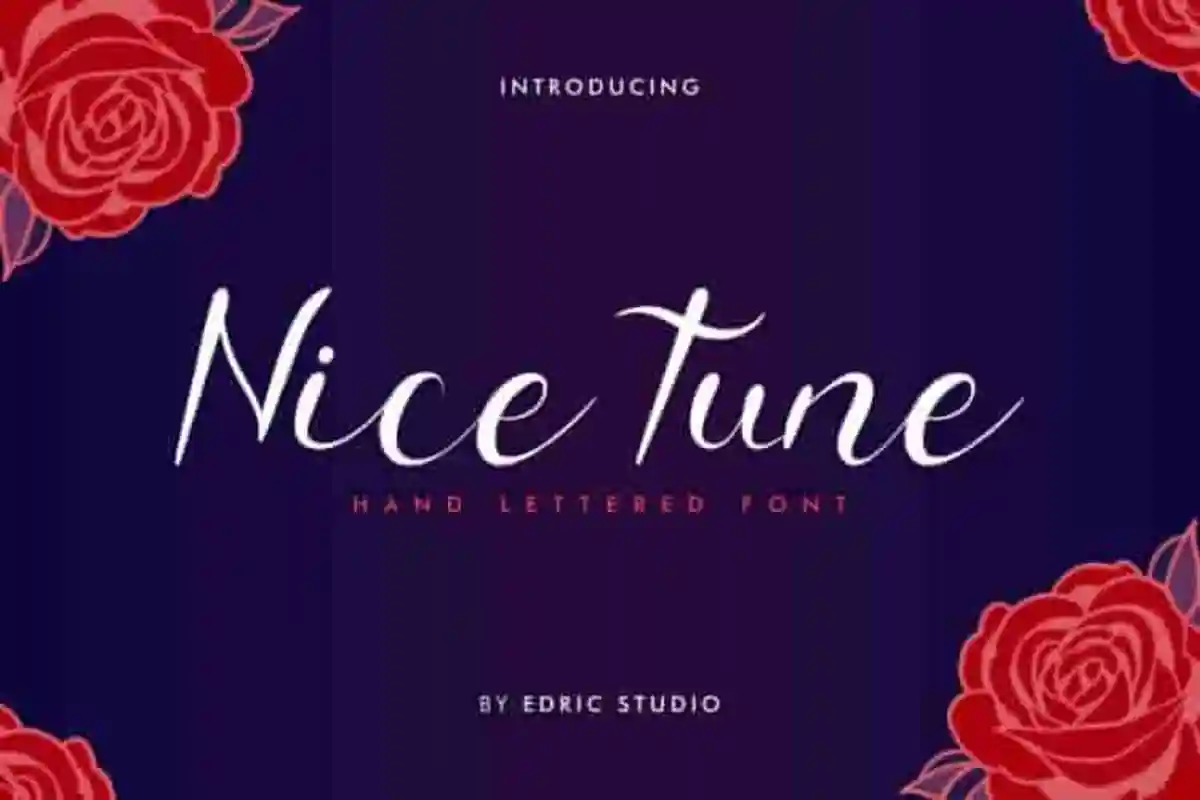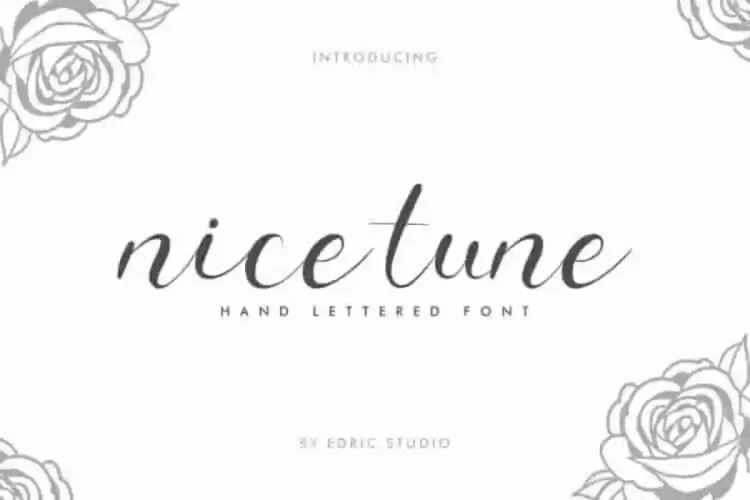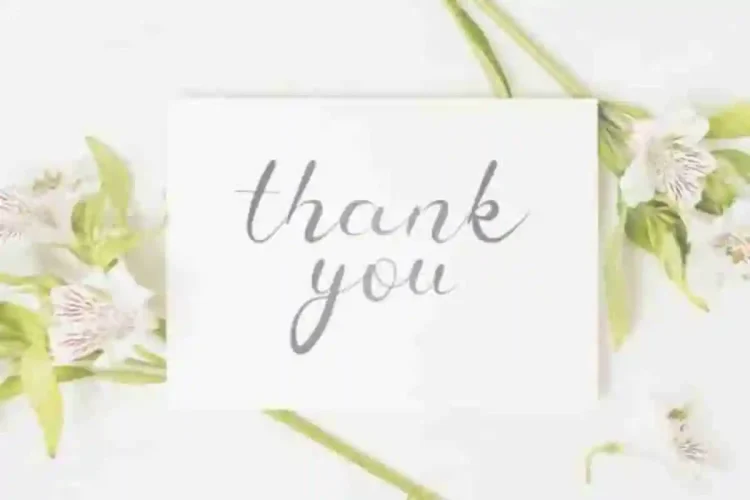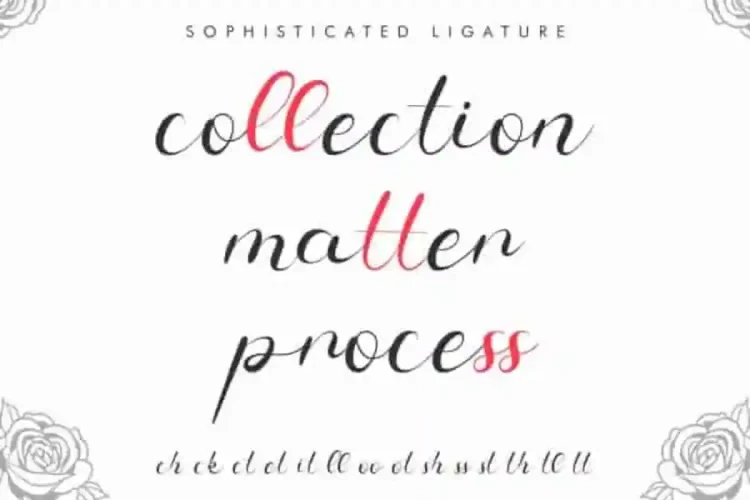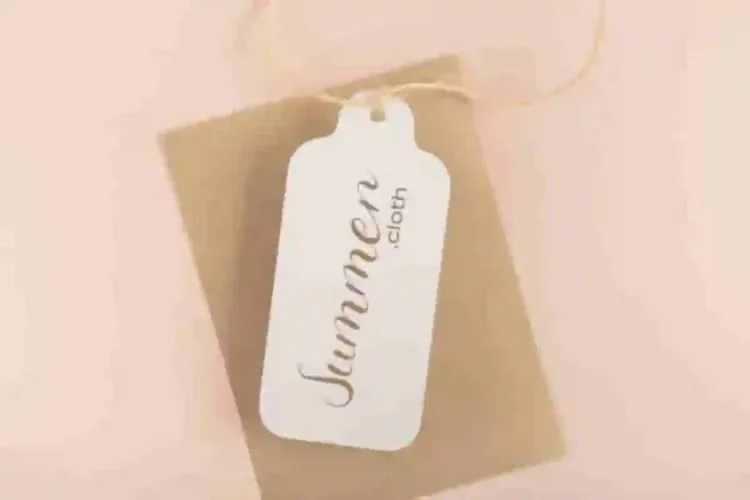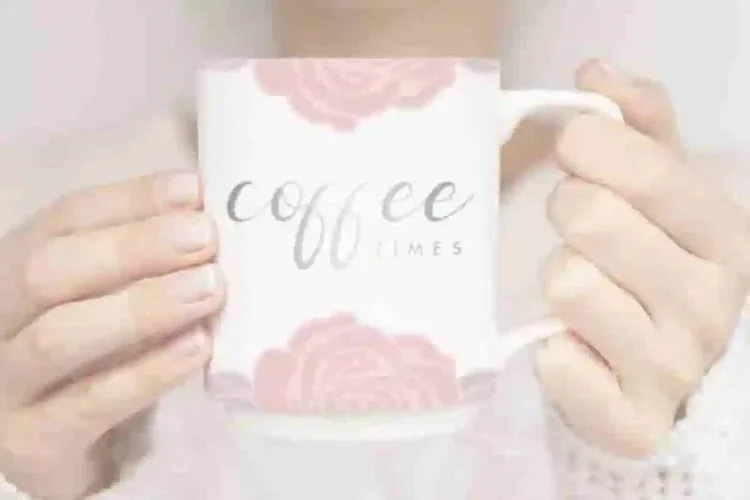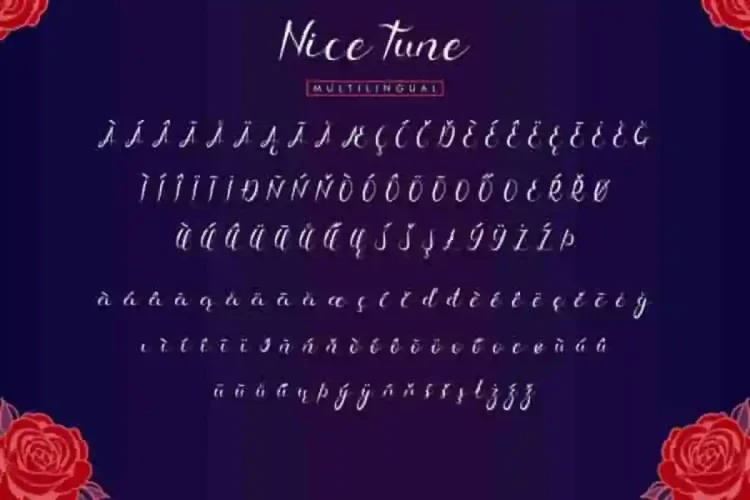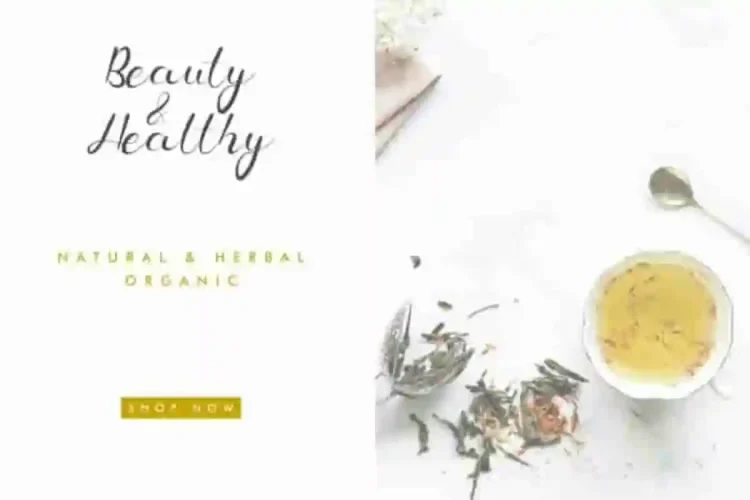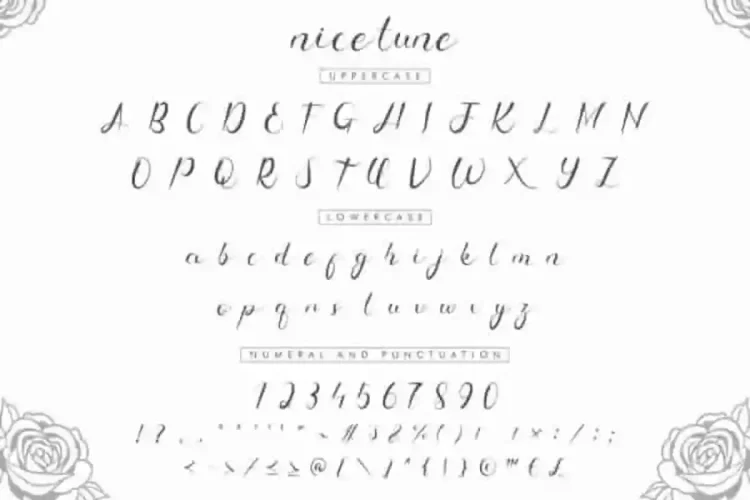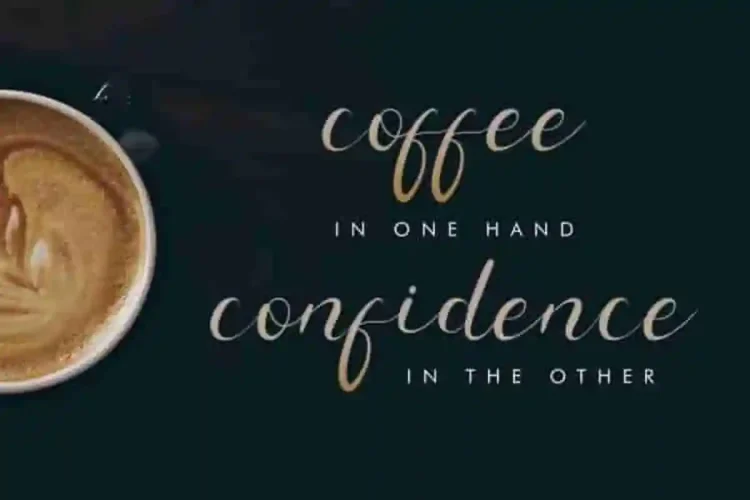
Nice Tune Calligraphy Script Font
Nice Tune Calligraphy Script Font!
This is a Calligraphy script font, handcrafted from our Studio here in, Indonesia. The artists/designers of this beautiful tyeface is Yasri and Sarah Suci.
Nice Tune Calligraphy Script Font Font is an exclusive display handwritting typeface with manual hand pen style. This font has a stunning characters set, perfectly managed with well spaced and kerning.
Nice Tune Calligraphy Script Font Font will be great for any projects including : branding, logo, stationery, business card, signage, flyer, brochure etc. Almost all industries will be match for this typeface: wedding, events, real estate, architect, law firm, florist, gardening, makeup artist, travel, hotel, musician etc.